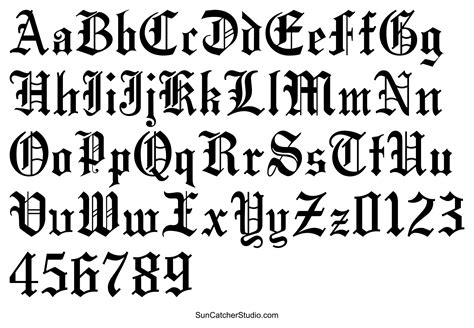
Gothic Font Generator Copy And Paste. Simply type or copy the. Web gothic font generator tool will let you convert simple and normal font style into your desired font.
Web use gothic / blackletter / old english fonts on twitter, facebook, and more. Fraktur, blackletter, old english, or gothic text is a. We present our fonts based on the medieval age, prepared for your best text. Simply type or copy the. Web to use the gothic text generator or gothic font generator, just type a message onto the text field and click generate. Web gothic, barroque and romanic fonts. Web gothic font generator tool will let you convert simple and normal font style into your desired font.
Web gothic, barroque and romanic fonts. Web gothic font generator tool will let you convert simple and normal font style into your desired font. Web to use the gothic text generator or gothic font generator, just type a message onto the text field and click generate. We present our fonts based on the medieval age, prepared for your best text. Fraktur, blackletter, old english, or gothic text is a. Web use gothic / blackletter / old english fonts on twitter, facebook, and more. Simply type or copy the. Web gothic, barroque and romanic fonts.